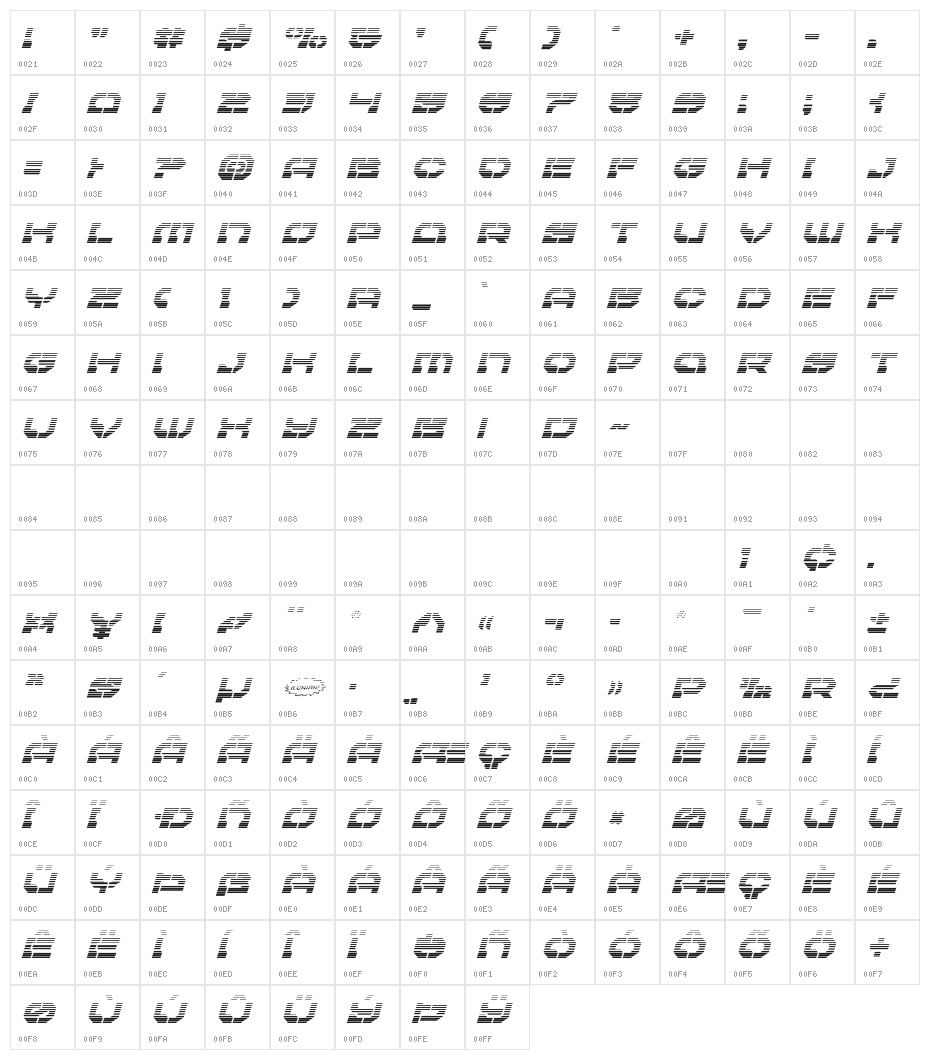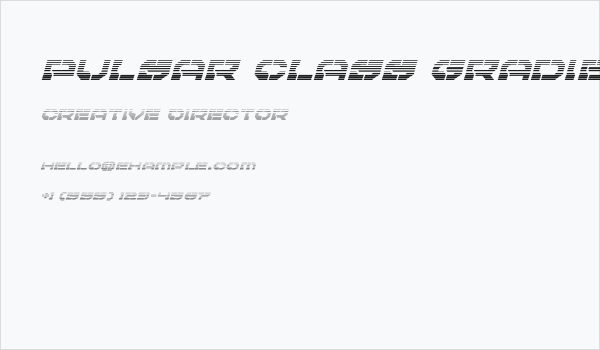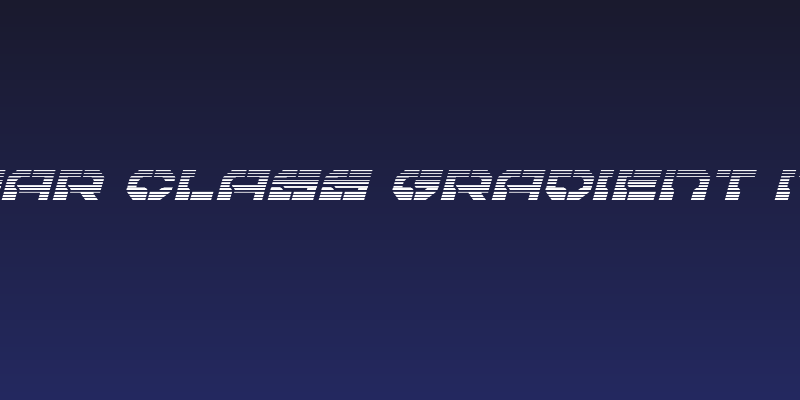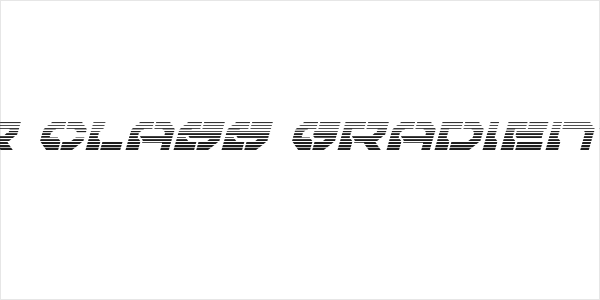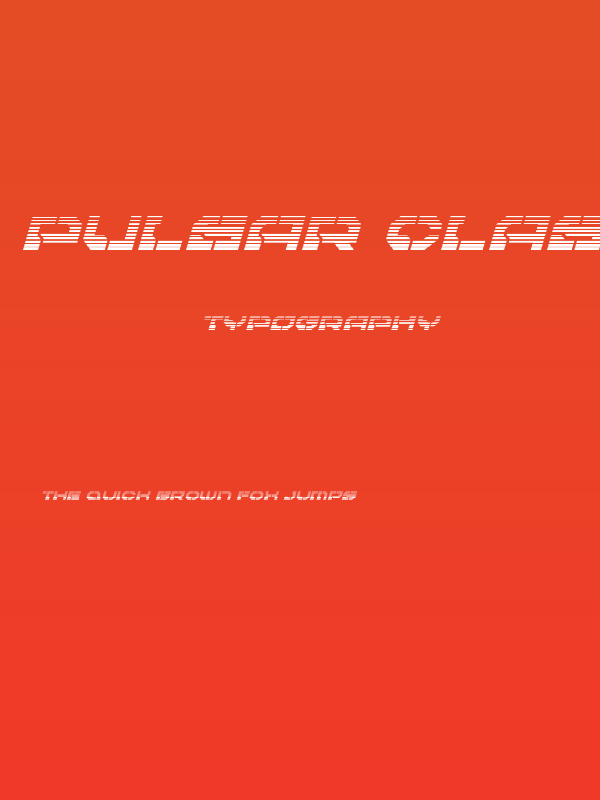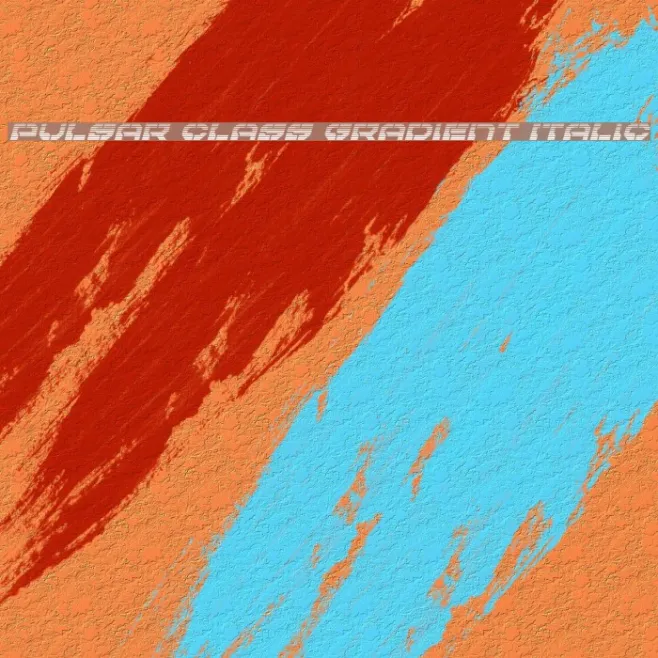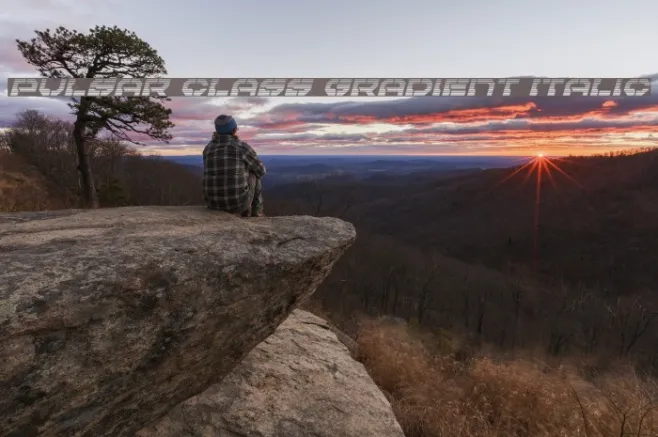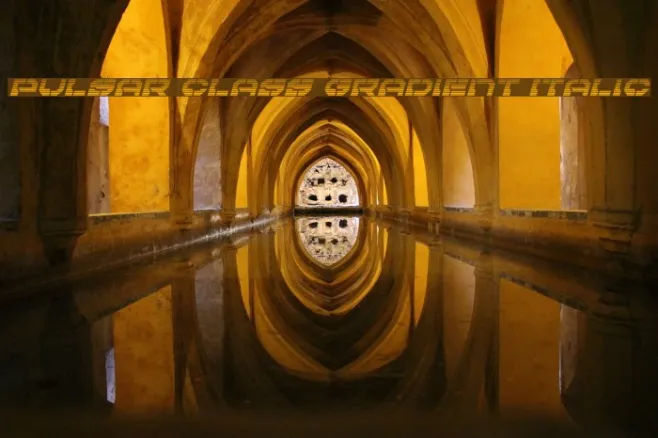
Pulsar Class Gradient Italic Font
Pulsar Class Gradient Italic Description
This font features a futuristic and dynamic design with a distinct gradient effect that gives each character a sense of movement and depth. The italicized style adds to its sleek and modern appearance, making it ideal for projects that require a cutting-edge look. The characters are composed of parallel lines that create a striped pattern, enhancing the visual interest and uniqueness of the font. The overall design is bold and eye-catching, suitable for making a strong visual impact.
| Proposed Projects | Ideal for sci-fi themed designs, technology branding, video game titles, and futuristic posters. |